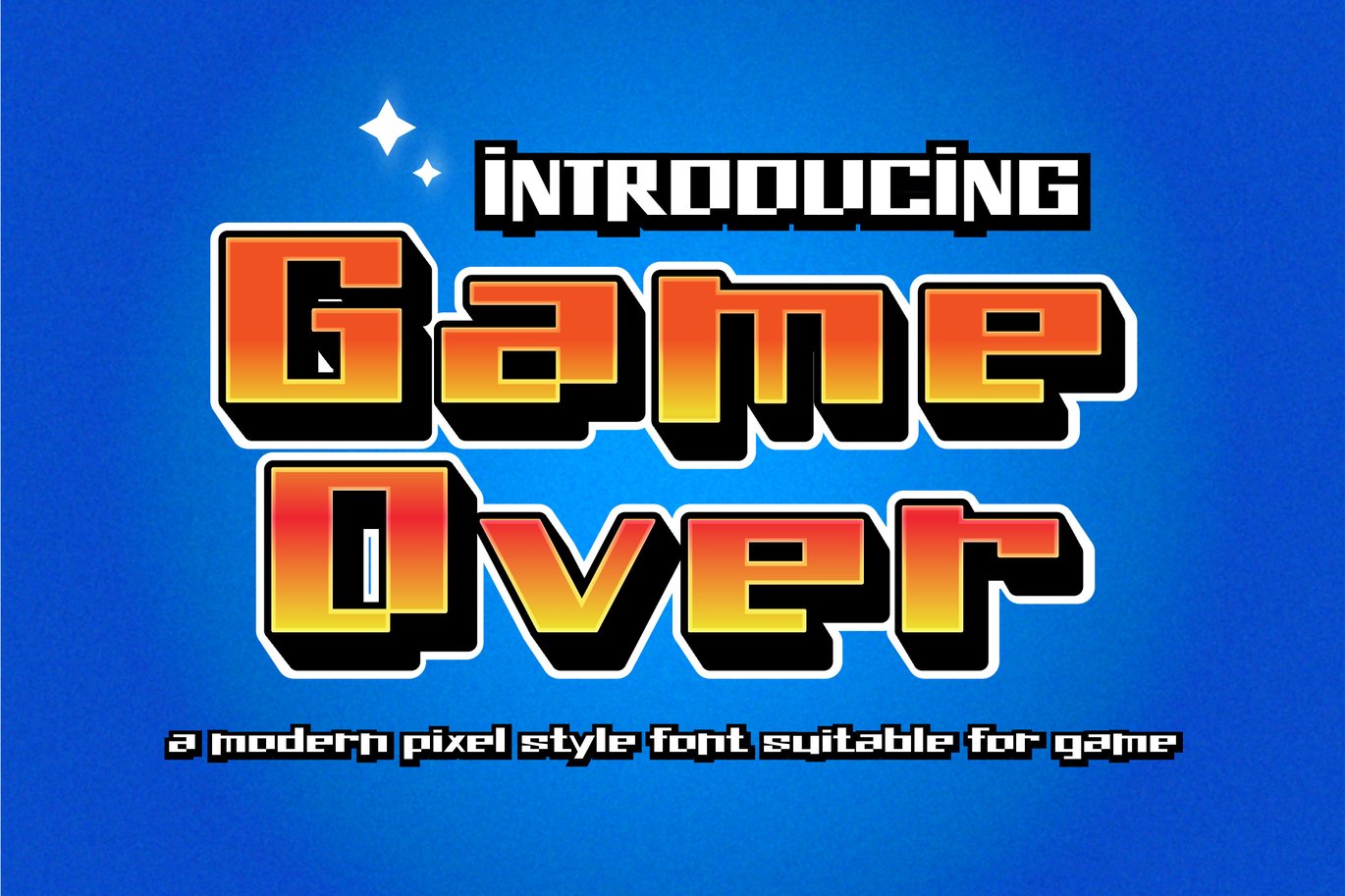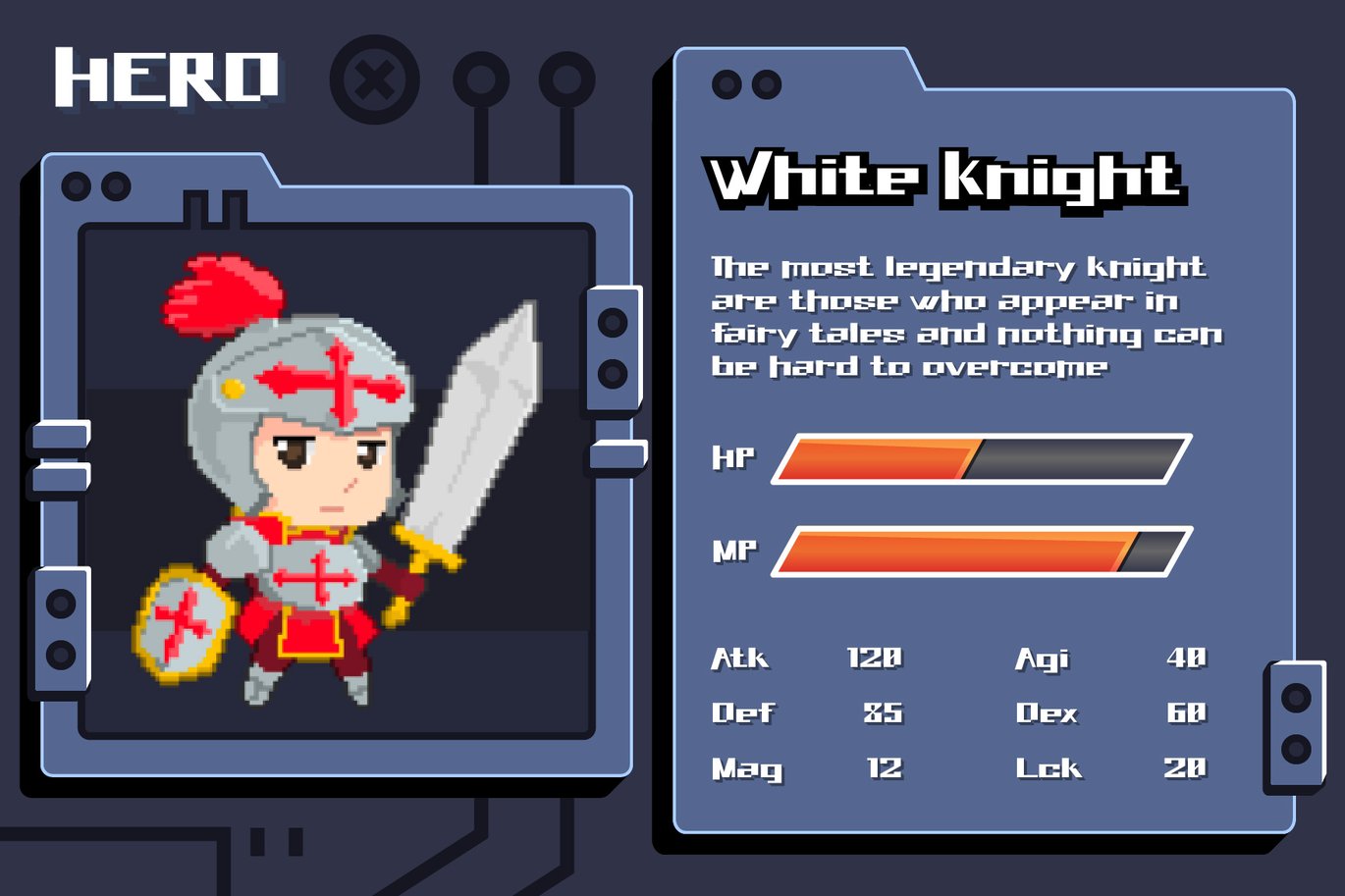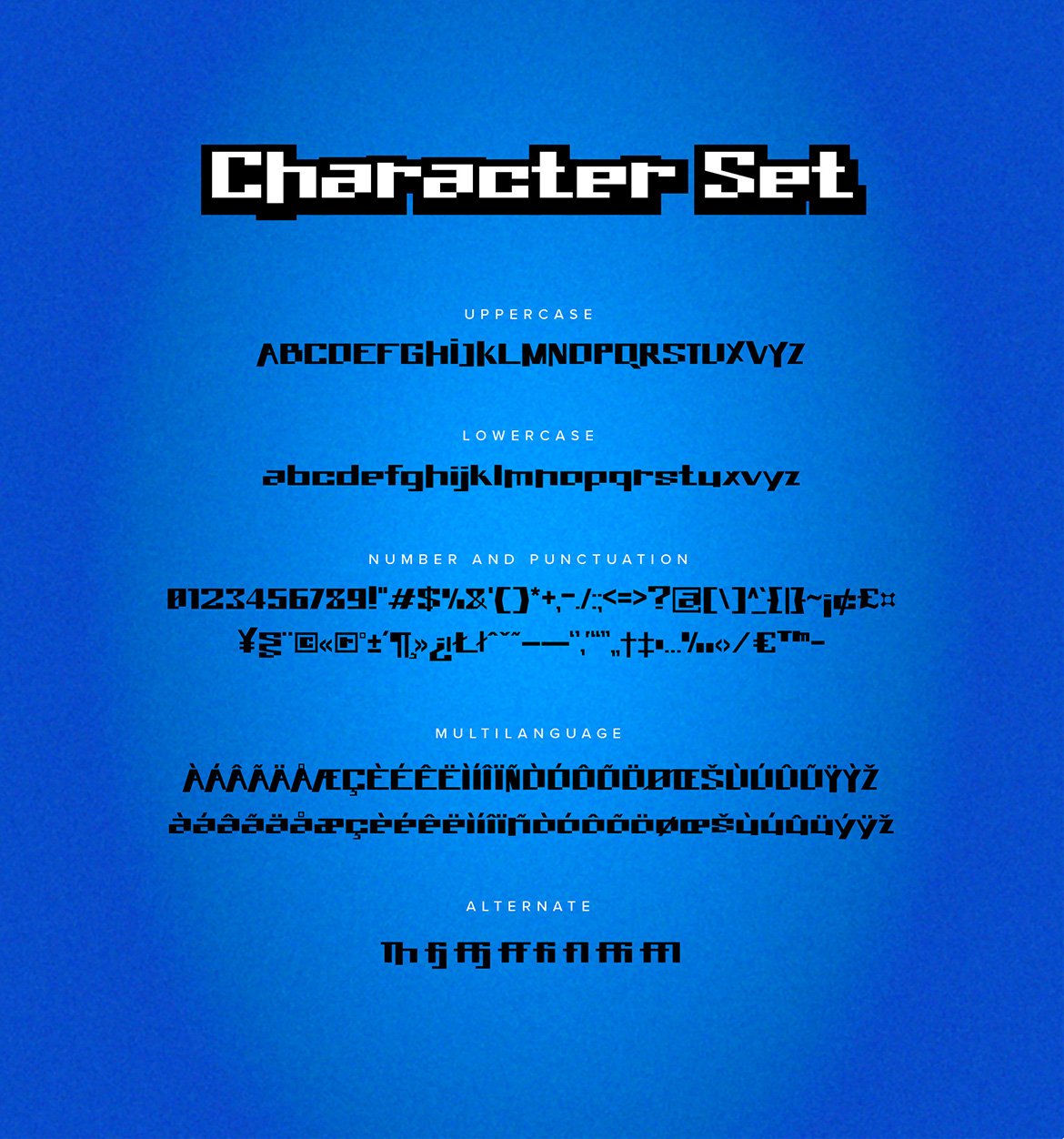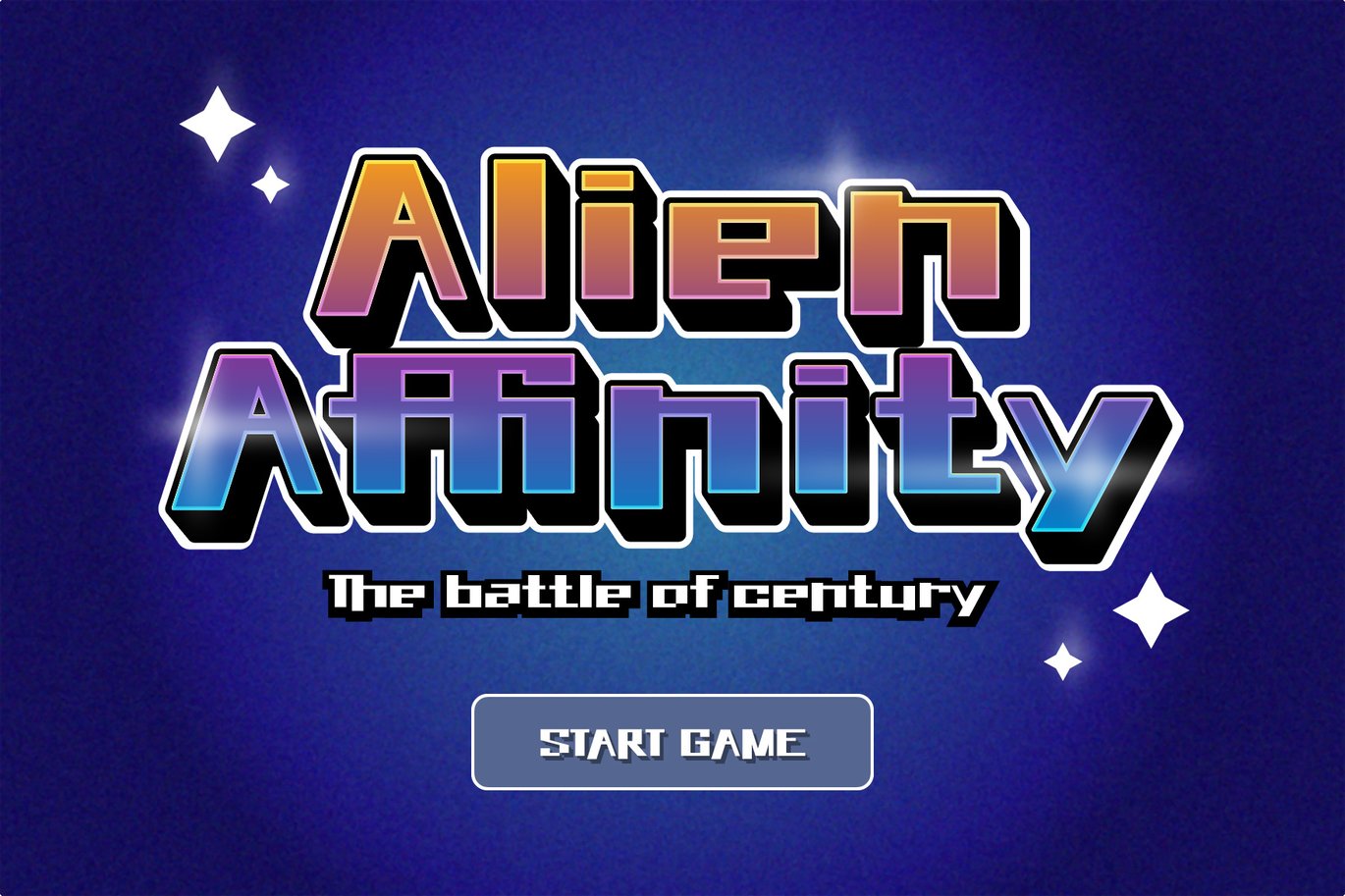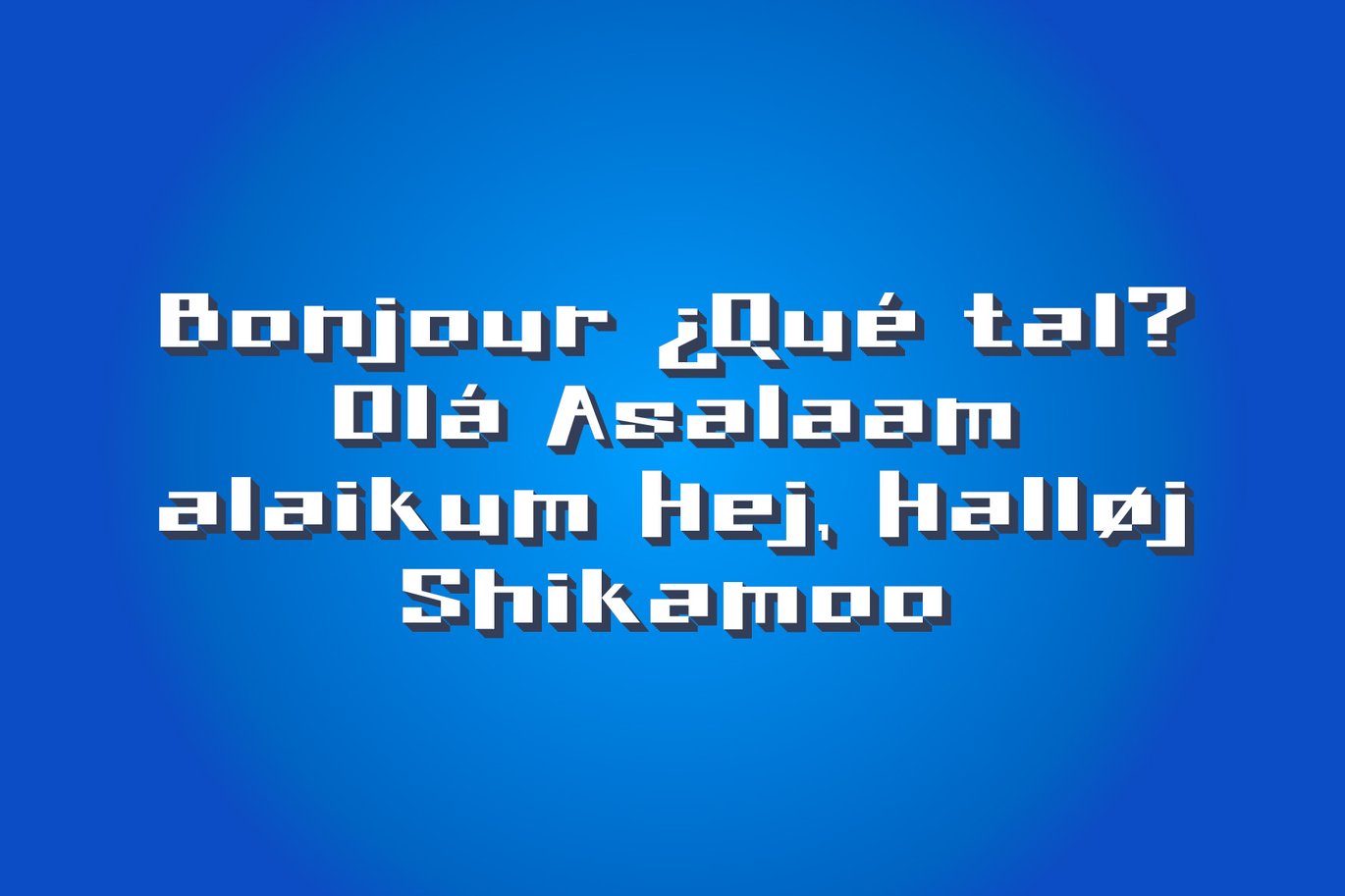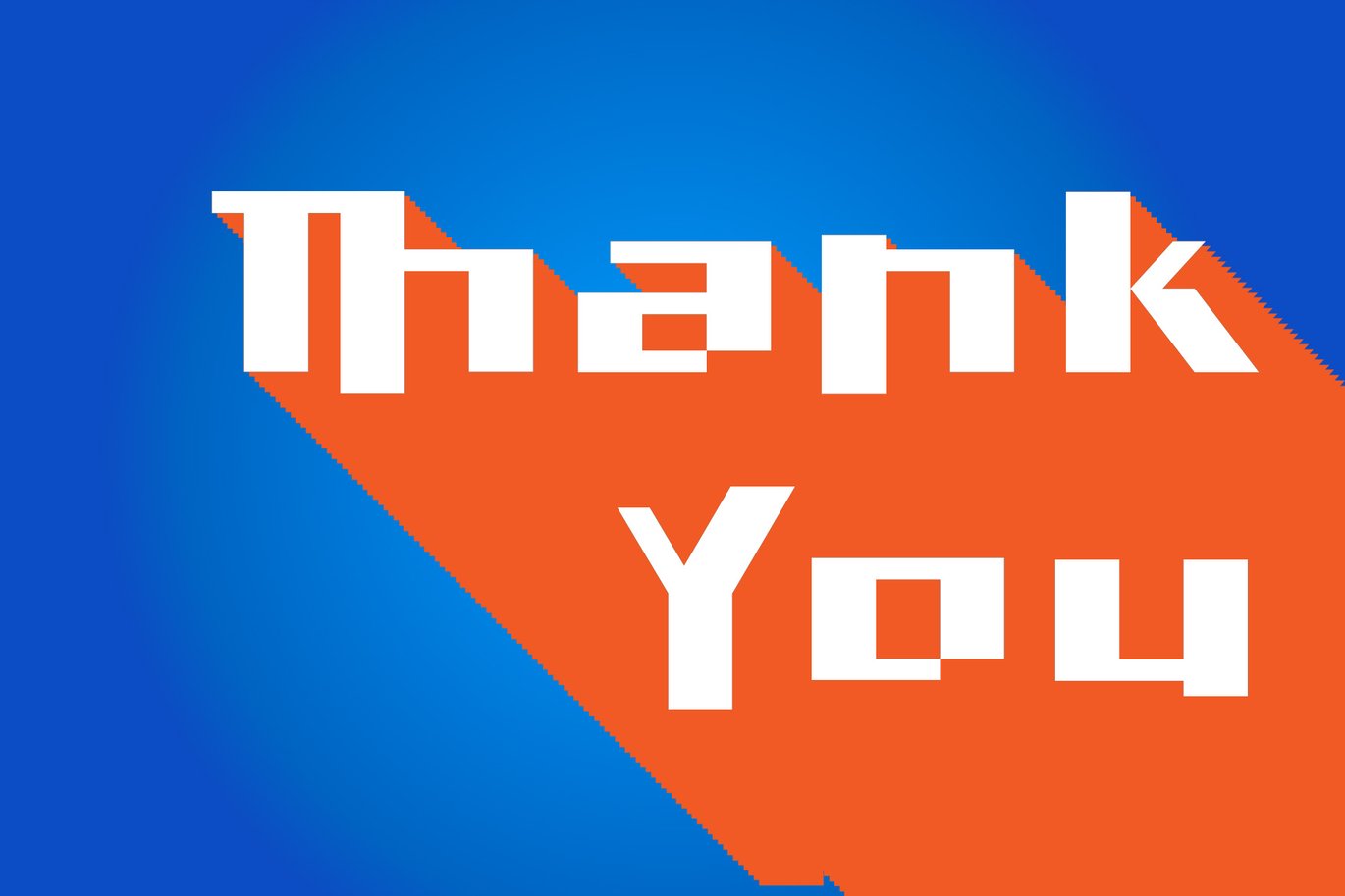
Game Over – Modern Pixel Style Font
Game Over is a modern pixel style font made suitable for game purpose or other display purpose. It features a unique style and will add a unique feel to your upcoming projects. Get inspired by its unique feel and use it to create games!
Special Character/ Alternate Glyphs included
- Fixed letter O to differentiate it with letter D